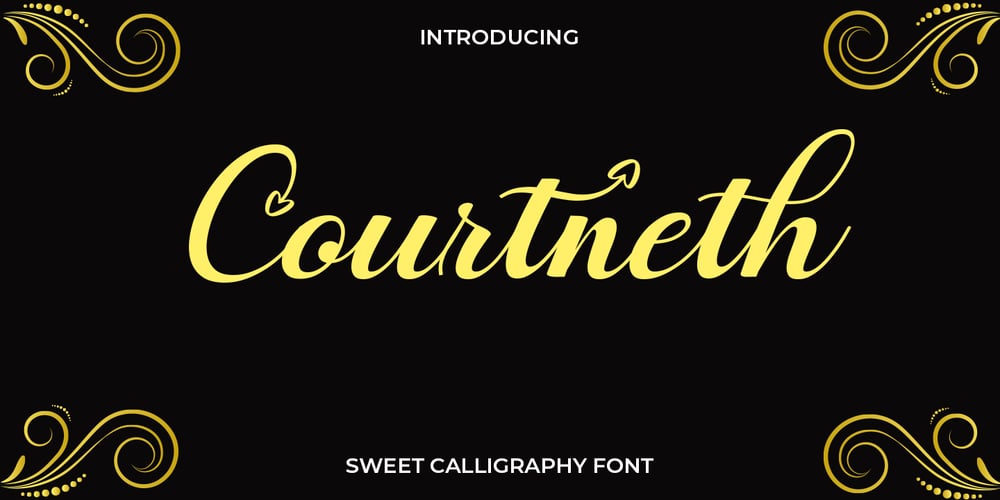
Courtneth Font Family was designed by Riza Fahmi and published by Rifa Studio. Courtneth contains 1 styles and family package options. Courtneth is a calligraphy script font that comes with lovely alternates character. a mixture of from copperplate calligraphy with handlettering style. Designed to convey style elegance. Moritza is attractive like a smooth, clean, feminine, sensual, glamorous, simple and highly legible typeface. Its classic style is perfect to be applied in any type of formal pieces such invitations, labels, menus, Logos, fashion, make up, stationery, letterpress, romantic novels, magazines, books, greeting / wedding cards, packaging, labels.Courtneth features 400+ glyphs. including multiple language support. With OpenType features with stylistic alternates, ligatures and swash characters, that allows you to mix and match pairs of letters to fit your design, and also a touch of ornament makes this font look elegant.